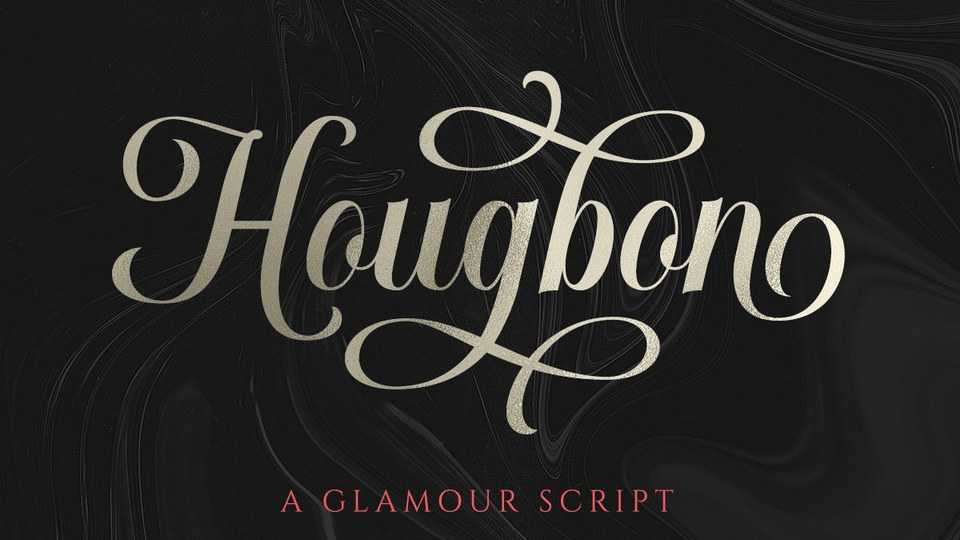
Download Hougbon font, a beautiful script with feminine, smooth and glamorous vibe. Hougbon Script is ideal for use in a variety of formal designs, such as invitations, labels, logos, magazines, greeting cards, wedding invitations, fashion, novels or any type of advertising purpose.